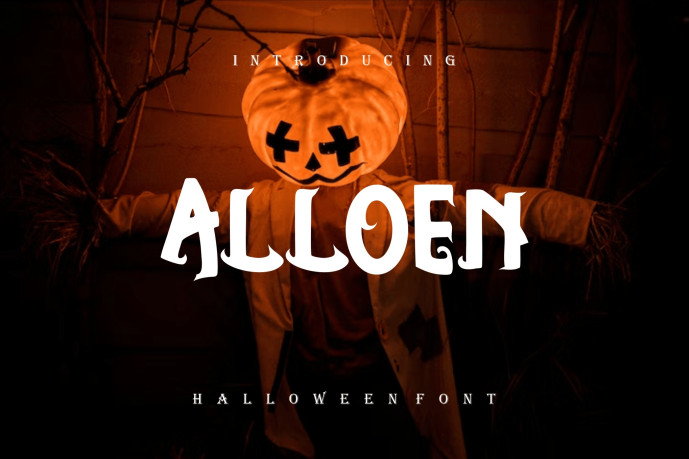
Alloen Font
Designer: TRI IRVAN PRAYOGA
Alloen Font. Modern serif font that feels beautiful classy, elegant, and modern. This font is perfectly suited for a wide variety of projects, such as signature, stationery, logo, wedding, typography quotes, magazine or book cover, website header, clothing, branding, packaging design, and more. Also, fashion-related branding or editorial design displays both masculine and feminine qualities.